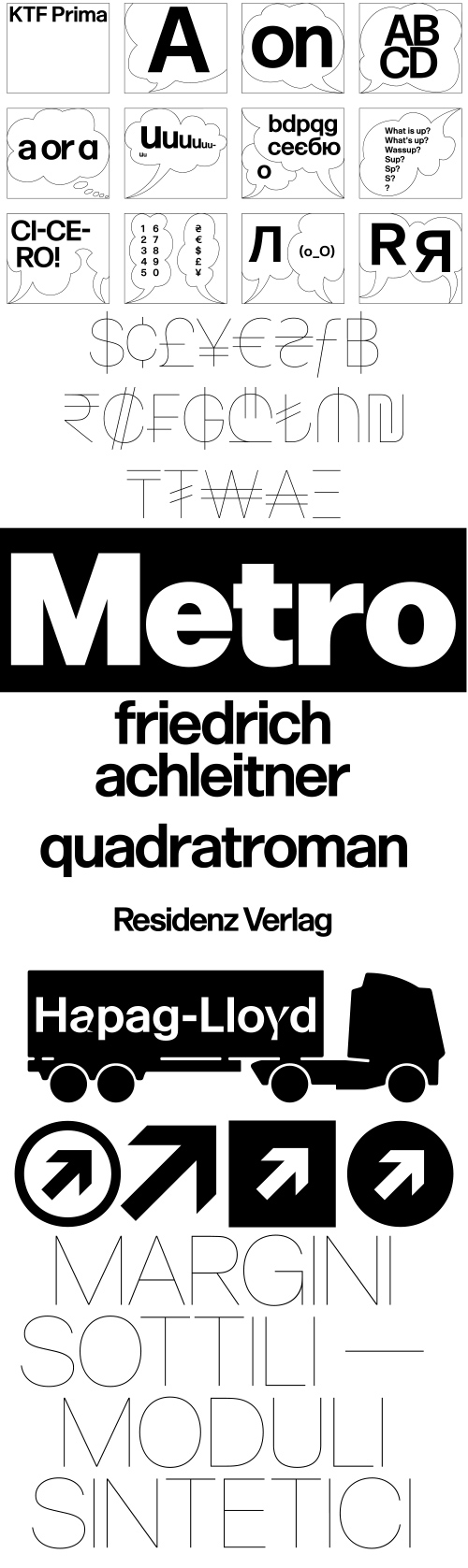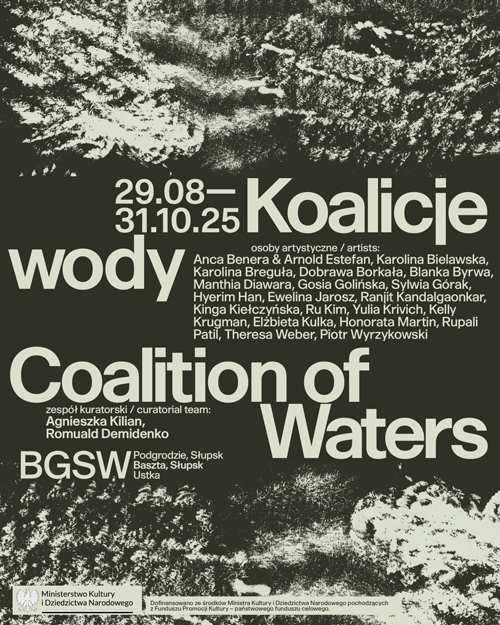
- It began ten years ago, during his studies at ECAL, when Yevgeniy Anfalov became interested* in Forma—often perceived as one of the warmer modernist sans serifs due to its proportions and restrained contrast. Its history reflects tensions between individual authorship and collective production, shaped by technical and organizational changes in Italian type foundry Nebiolo during the late 1960s and 1970s.
- Yevgeniy’s interpretation of Forma is called Prima. It was developed in response to the question of versatility in an era dominated by sharp, high-contrast displays. KTF Prima follows the principle of “one style fits all.” It is intended for designers who prefer a limited number of styles capable of functioning in both display and text contexts. Beyond tracking adjustments, its flexibility relies on inherited proportions. These proportions—central to Novarese’s Forma—distinguish it from other grotesques of its time. The subtle interplay of widths supports differentiation, while the tall x-height improves legibility.
- The typeface was redrawn from the ground up. No design decisions are dictated by obsolete technologies: no tapering stems, no rounded corners. Prima is contextual—discreet in Regular for text-heavy layouts, and more compact in Ultra Black, where spacing tightens for headlines and posters.
- Forma originally featured a circular "a", diverging from the double-story neo-grotesque convention that remains dominant today. A double-story "a" did exist in the original Nebiolo specimen, but only marginally. In Prima, this form is reclaimed, redesigned and integrated into the main character set. The same design principles guided Prima’s Cyrillic, conceived as an extension of the Latin system rather than a separate stylistic exercise. It follows a non-dogmatic, “westernised Cyrillic” approach, informed by a sketch by Viktor Kharyk and L. Kolesnichenko titled "Helvetica" (1980)***. A distinctive feature of the Cyrillic is the flared leg of "Л" with a flat terminal, reinforcing the typeface’s structural logic. Prima offers a contemporary interpretation of a classic jobbing typeface—designed to sustain long-form use across different contexts.